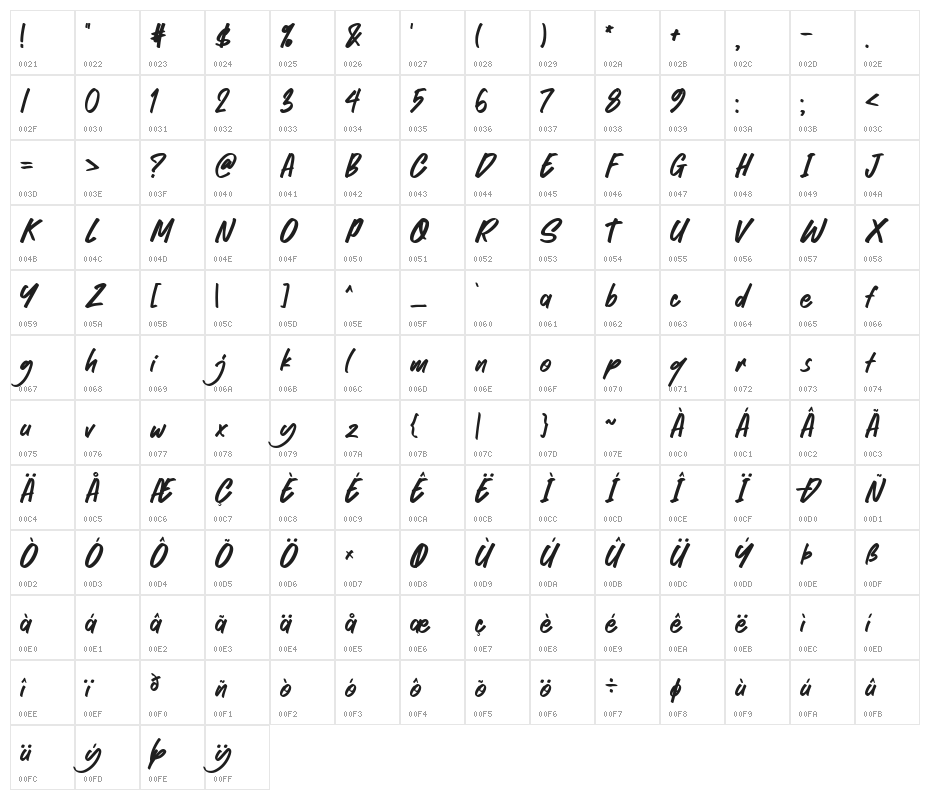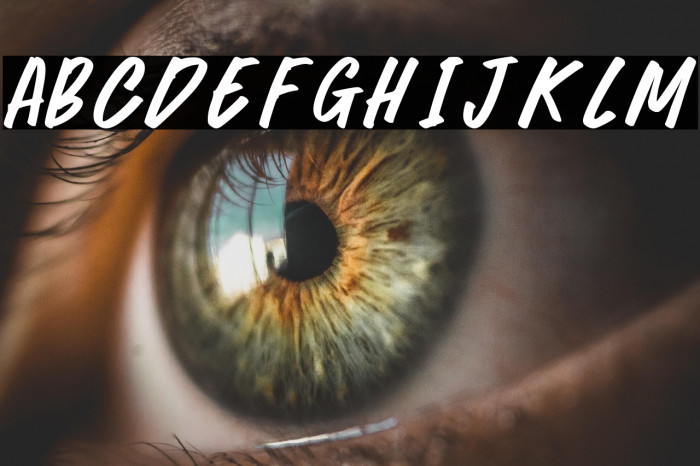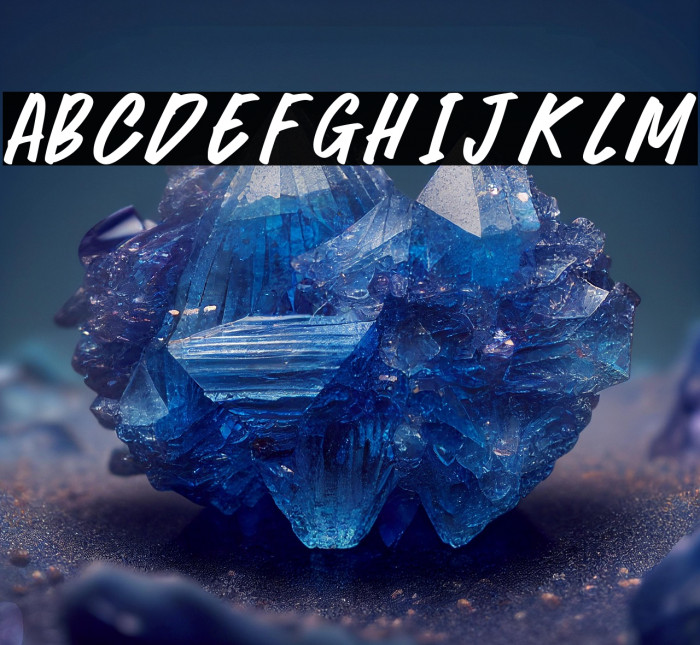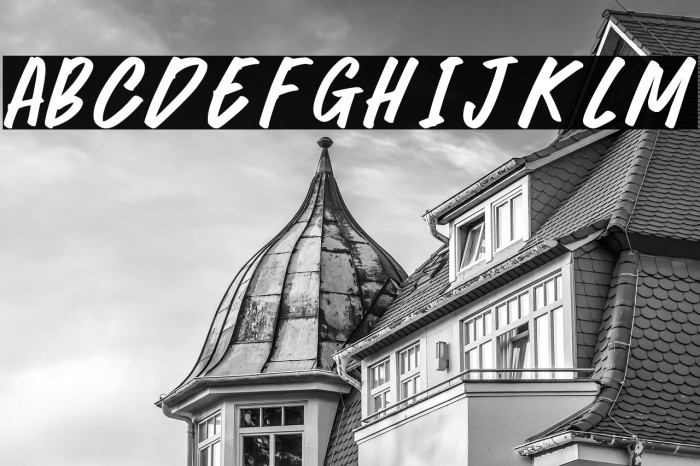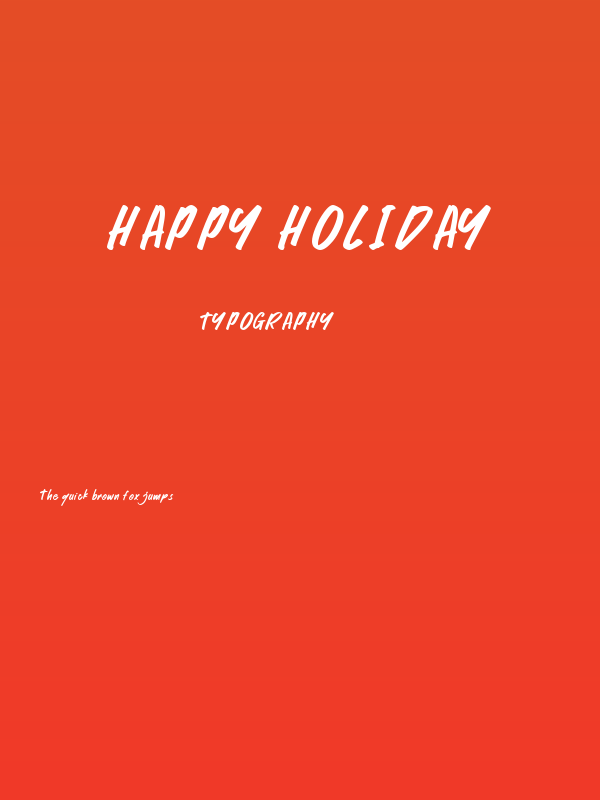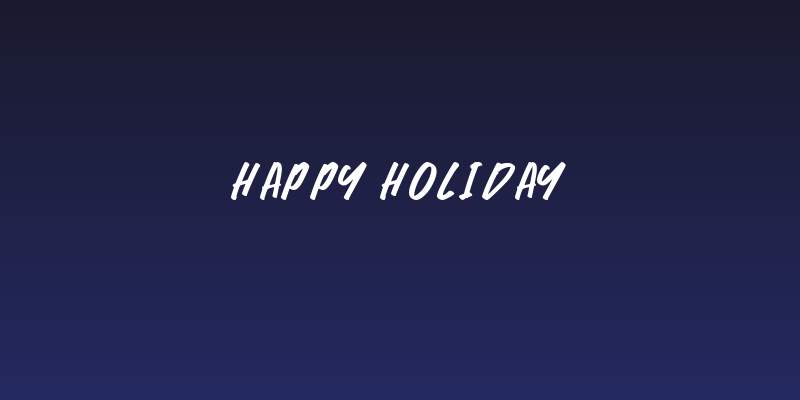
Happy Holiday Font
Happy Holiday Description
This font features a bold, handwritten style with a playful and energetic feel. The letters are slightly slanted, giving a sense of movement and dynamism. The strokes are thick and consistent, providing a strong visual impact. The uppercase and lowercase letters maintain a cohesive style, while the numbers and special characters integrate seamlessly with the overall design. This font exudes a casual and friendly vibe, making it suitable for creative and informal applications.
| Overall Style | Casual and Energetic |
| Proposed Projects | Ideal for greeting cards, posters, social media graphics, and branding projects that require a personal touch. |